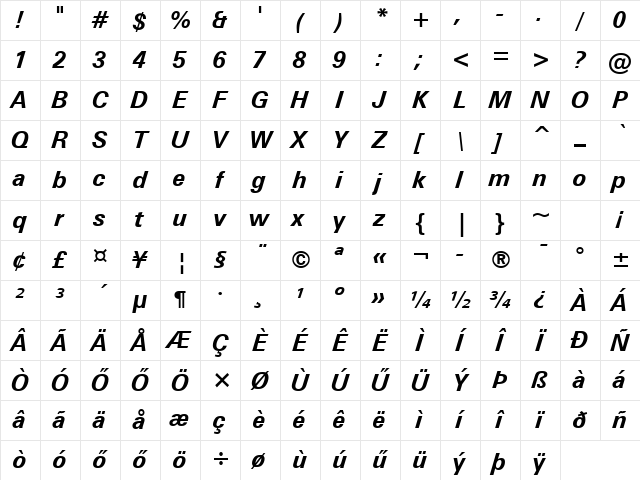
Hu_Swiss 742 BT BoldItalic Regular
Design Context for Hu_Swiss 742 BT BoldItalic
Hu_Swiss 742 BT BoldItalic is a composed and adaptable typeface that performs quietly and consistently across a wide range of design contexts. The slanted form adds forward momentum and visual energy. Its bold stroke weight gives it real presence on the page.